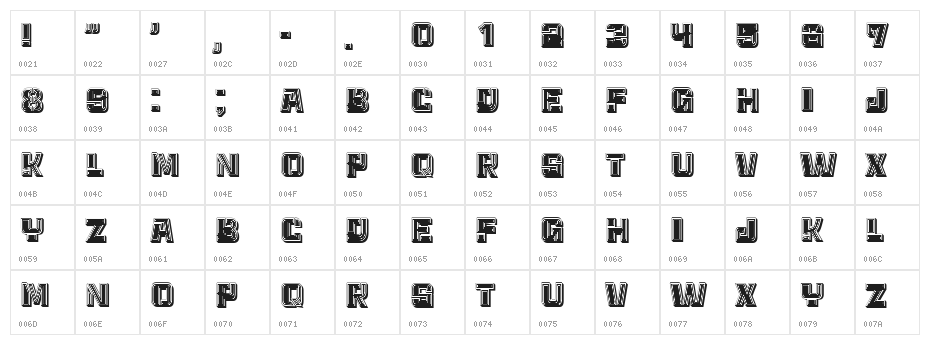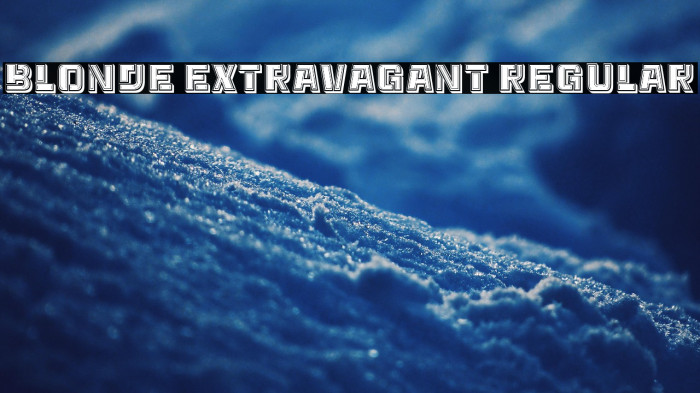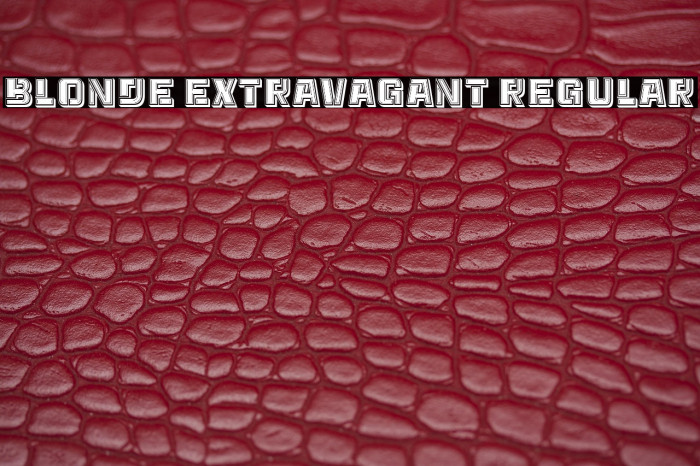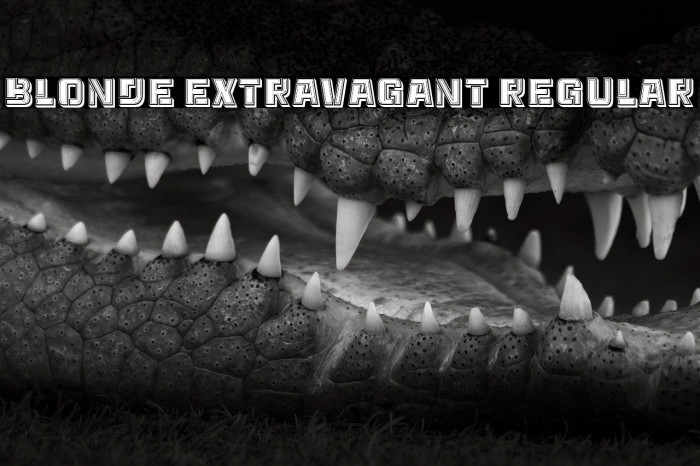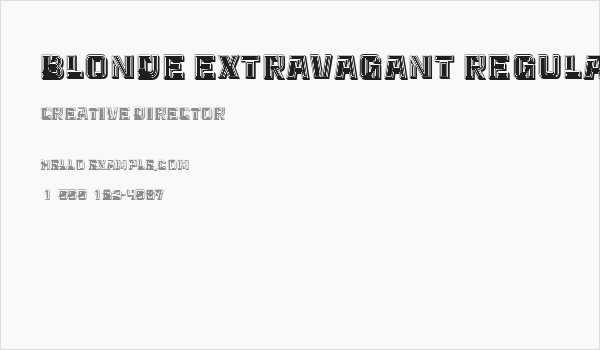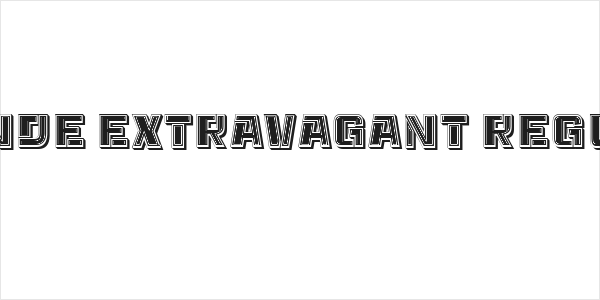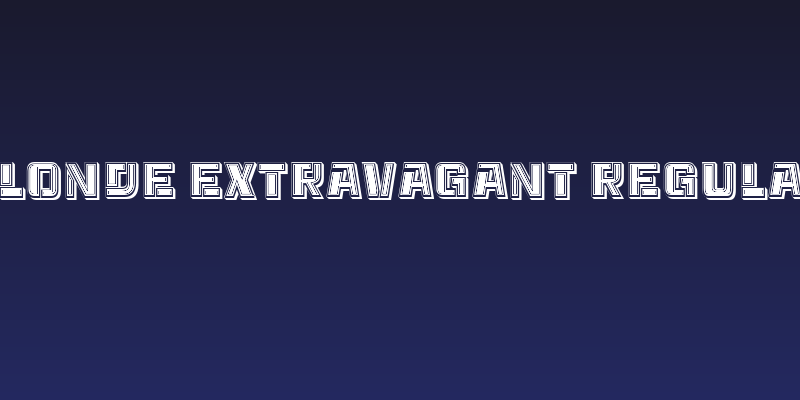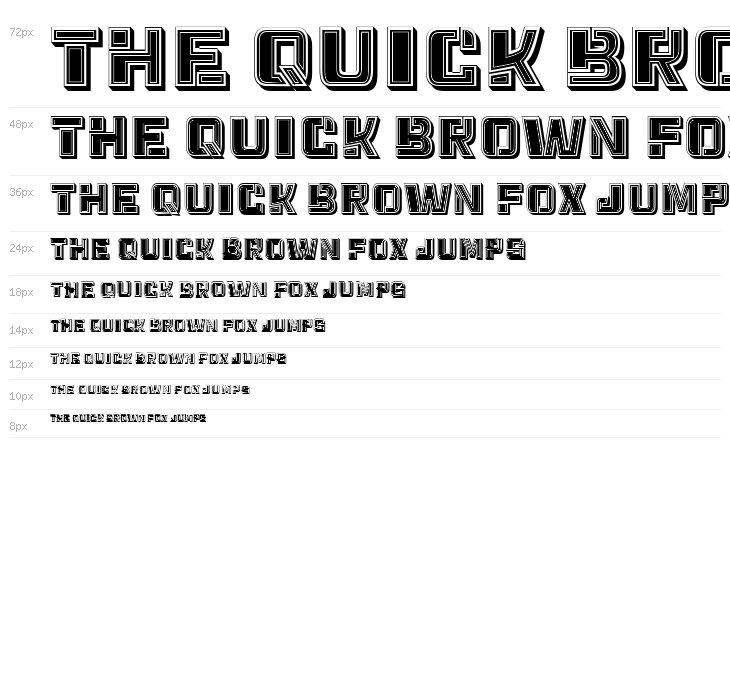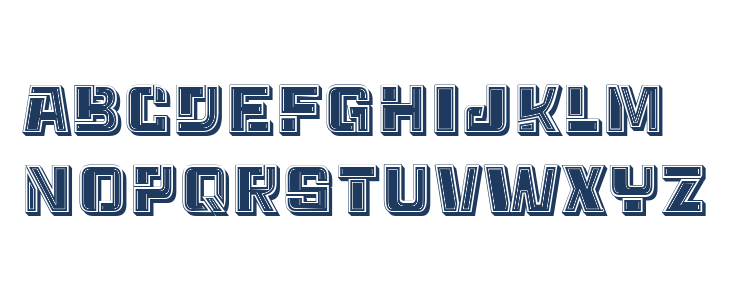
Blonde Extravagant Regular Font
Blonde Extravagant Regular Description
This font features a bold and striking design with a three-dimensional effect created by layered outlines. The characters are uppercase and have a geometric, block-like appearance that gives them a strong presence. The intricate detailing within each letter adds depth and complexity, making it ideal for attention-grabbing headlines or titles. The numbers and special characters maintain the same bold style, ensuring consistency across different uses. The font's unique style makes it suitable for projects that require a modern and edgy look.